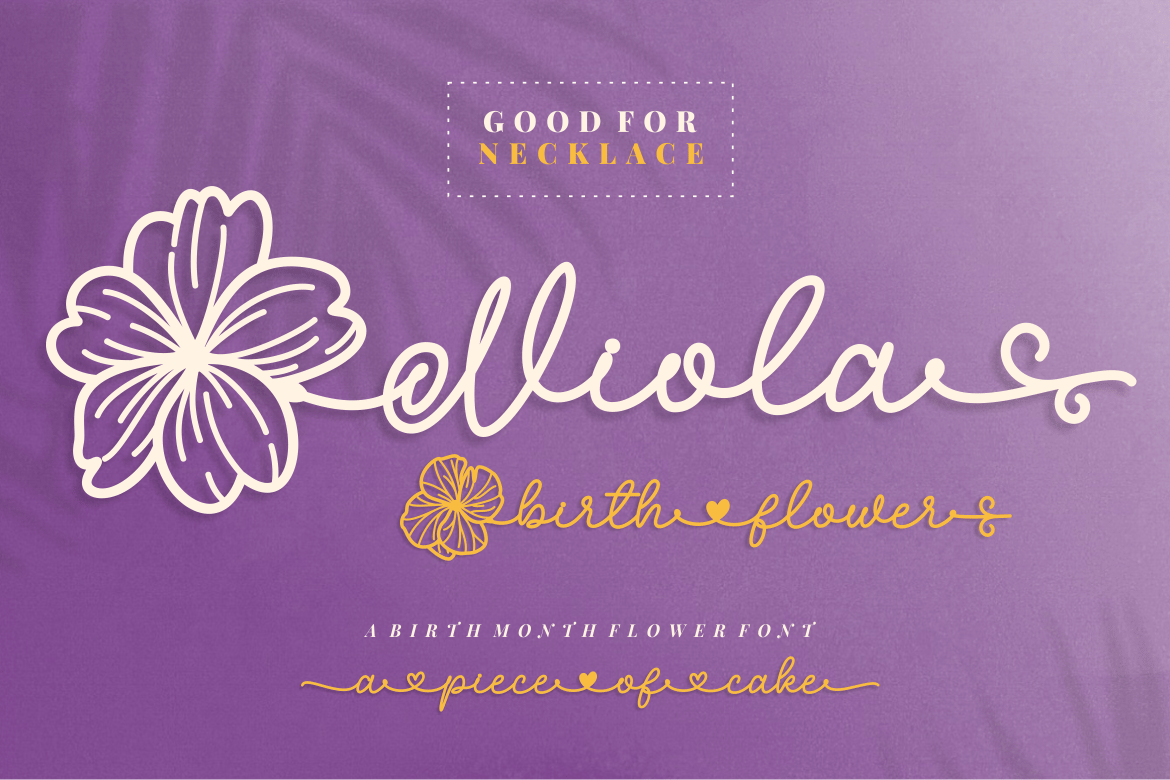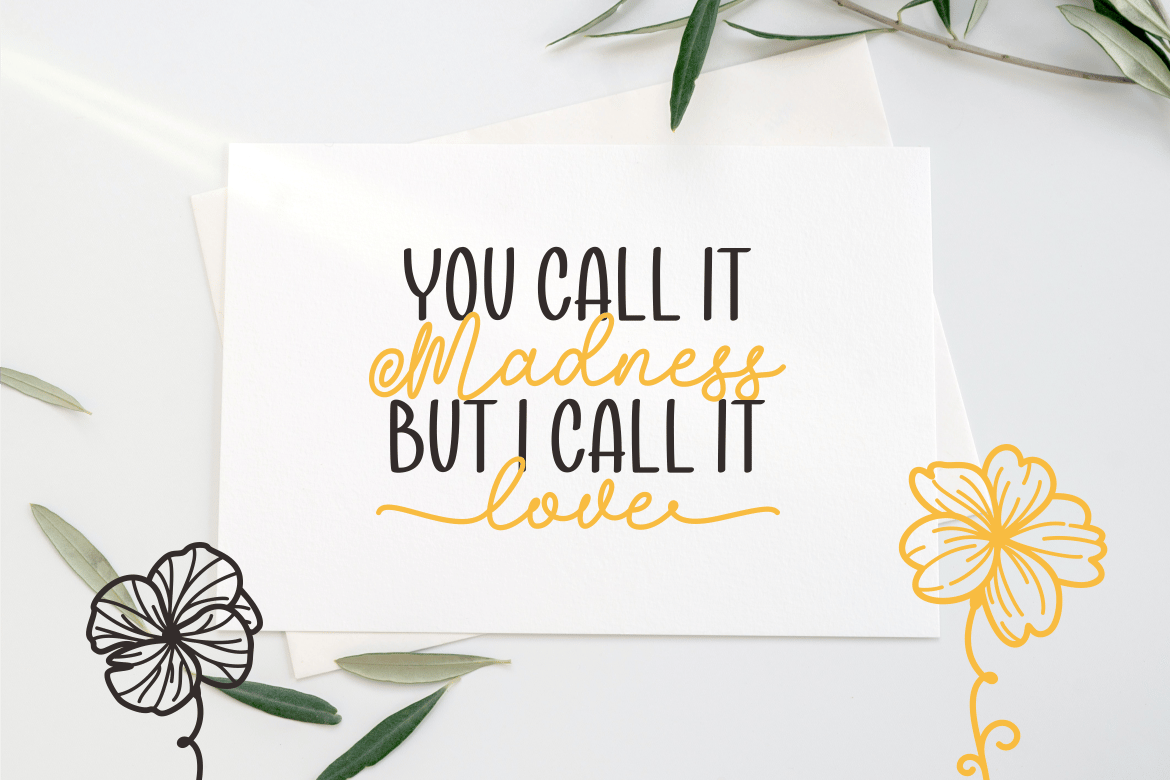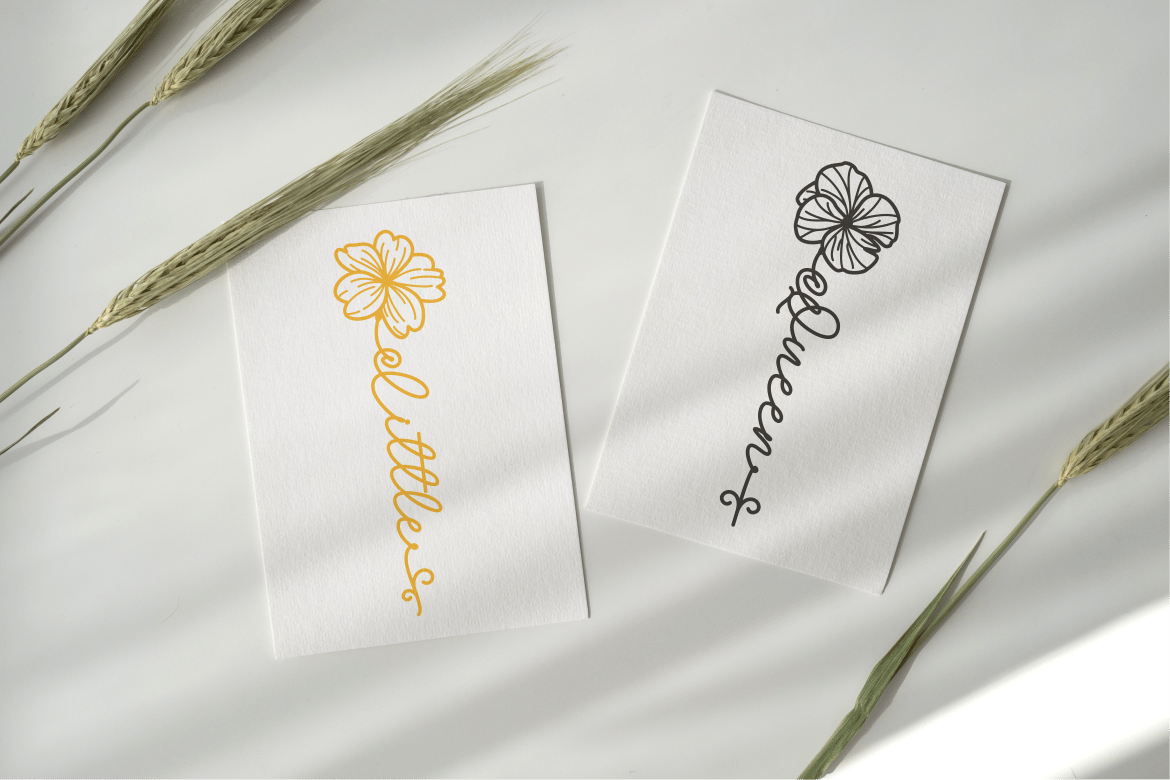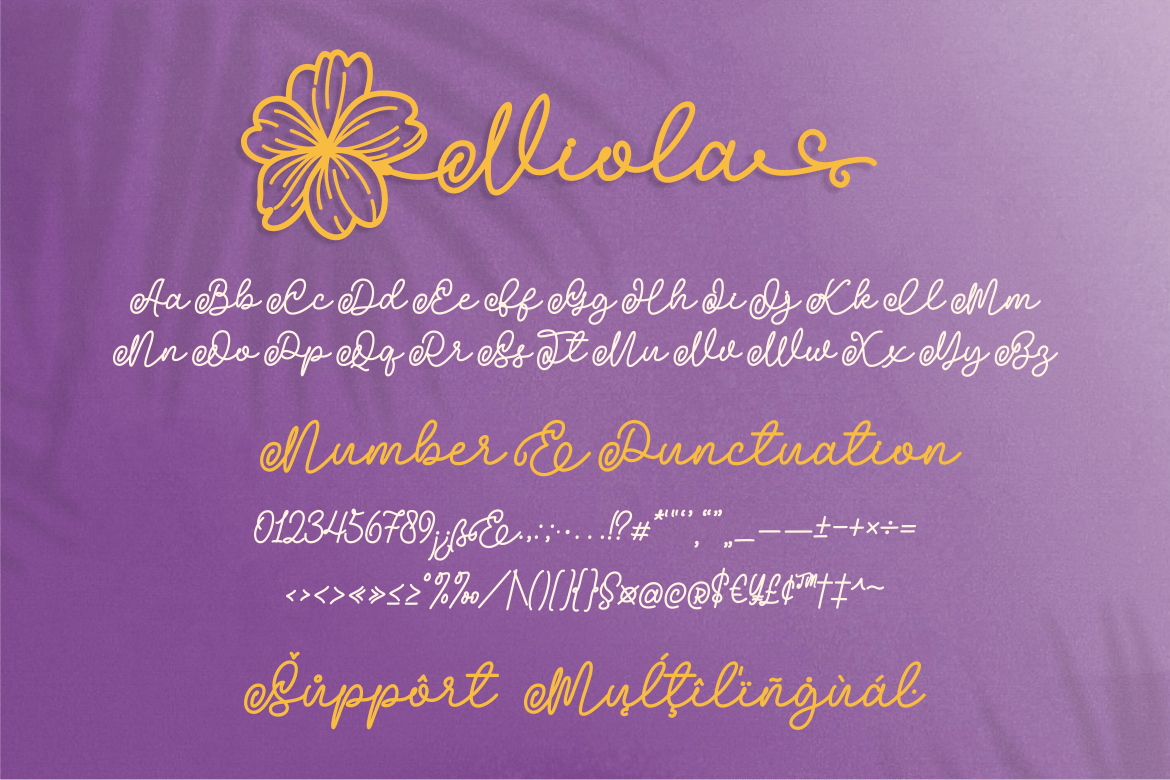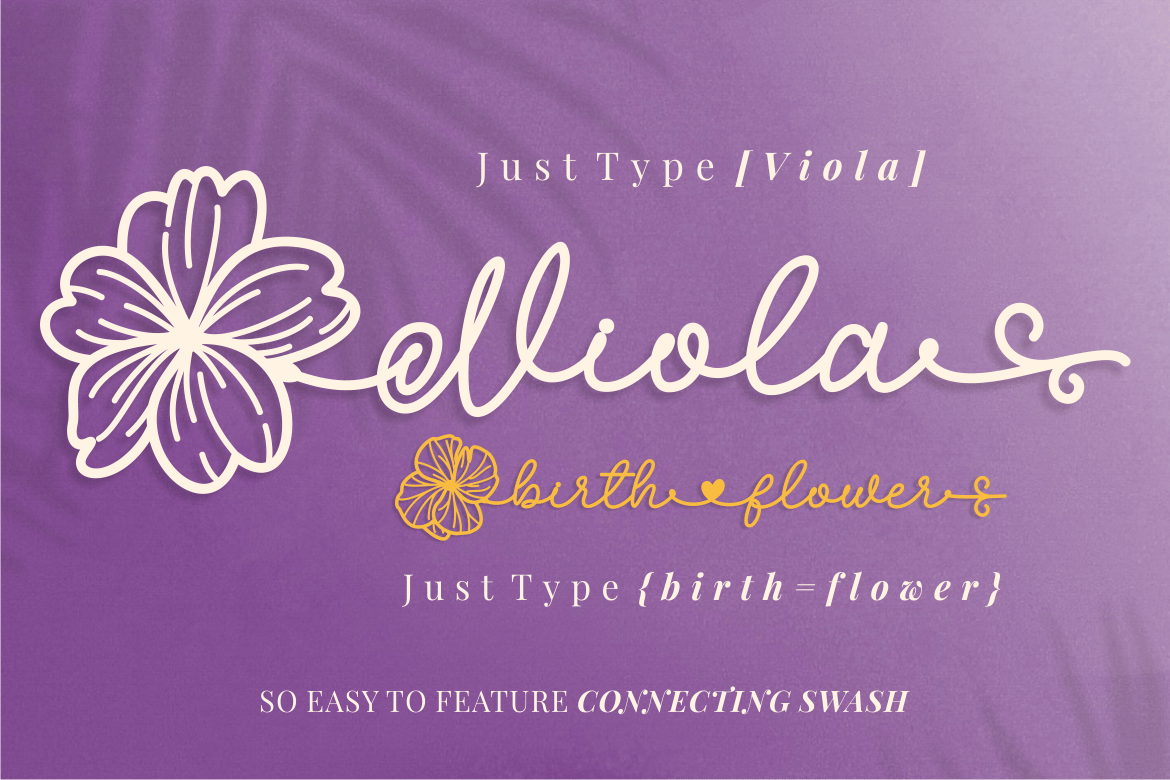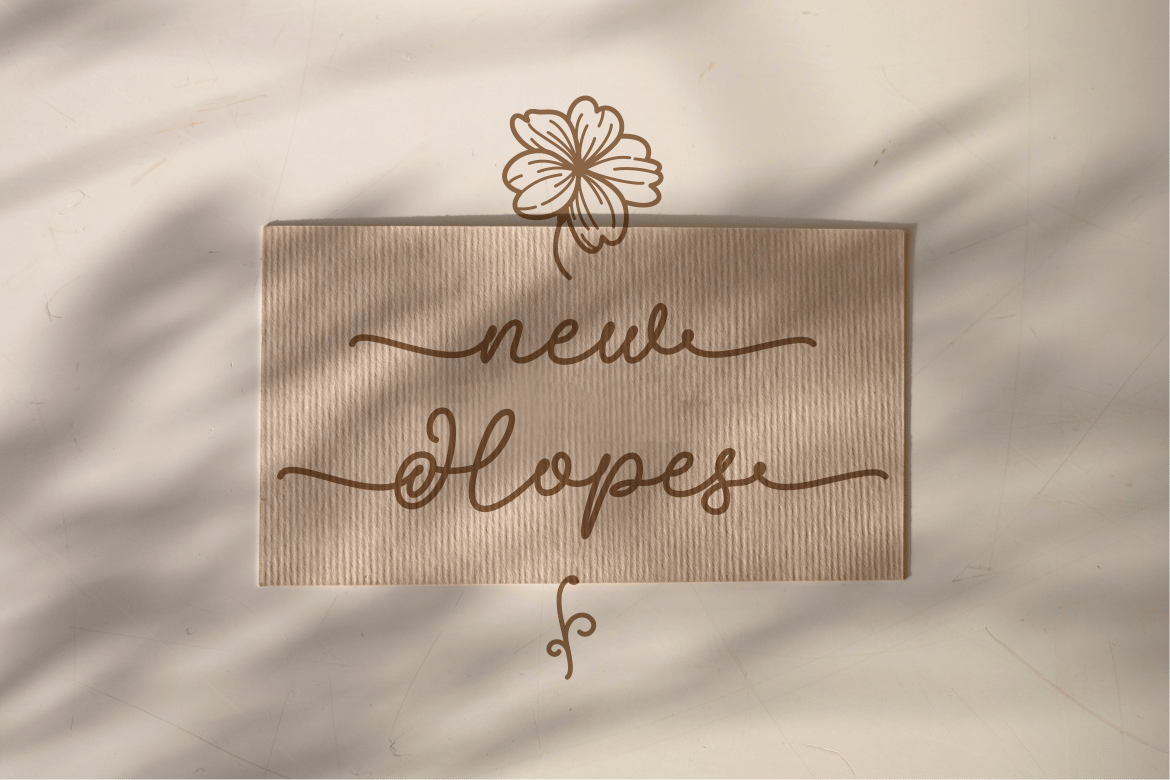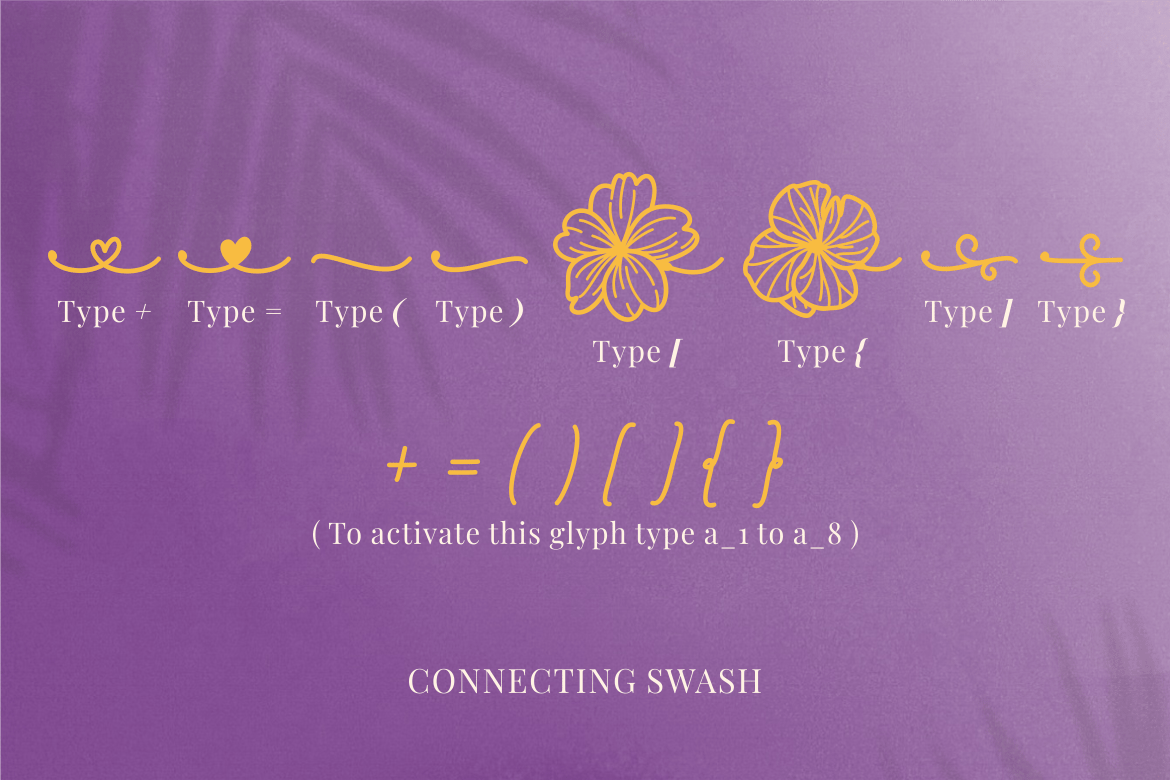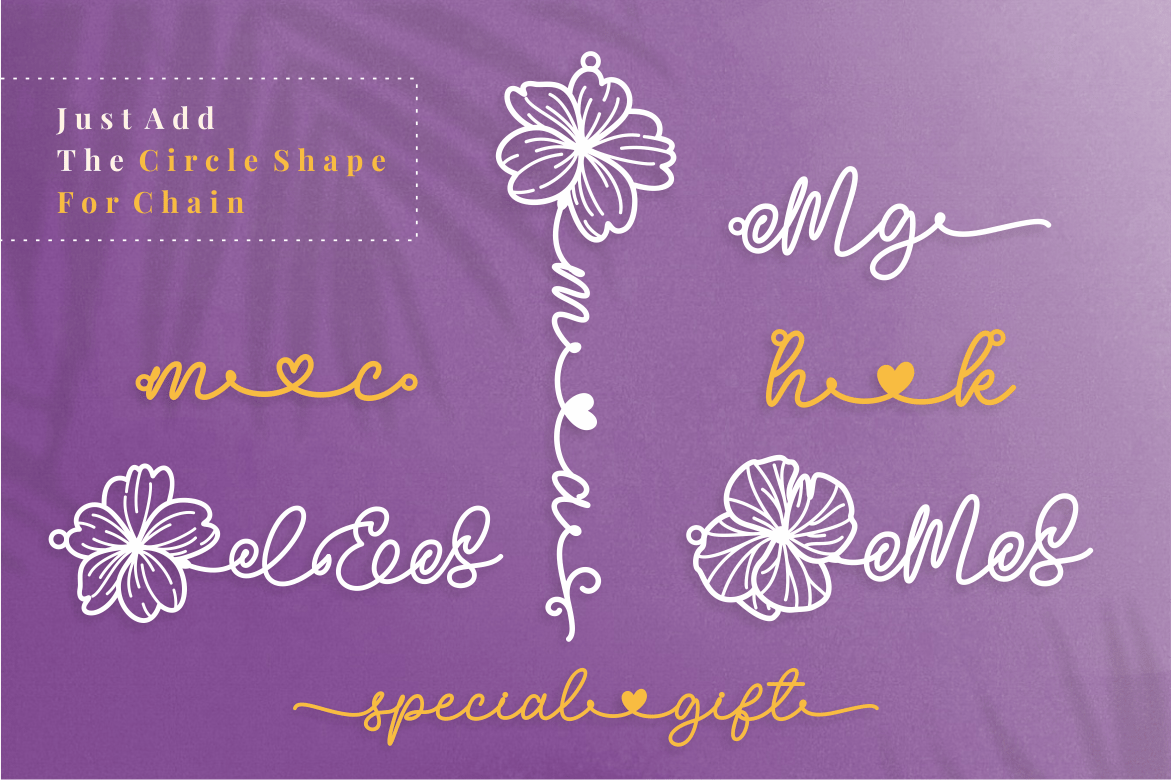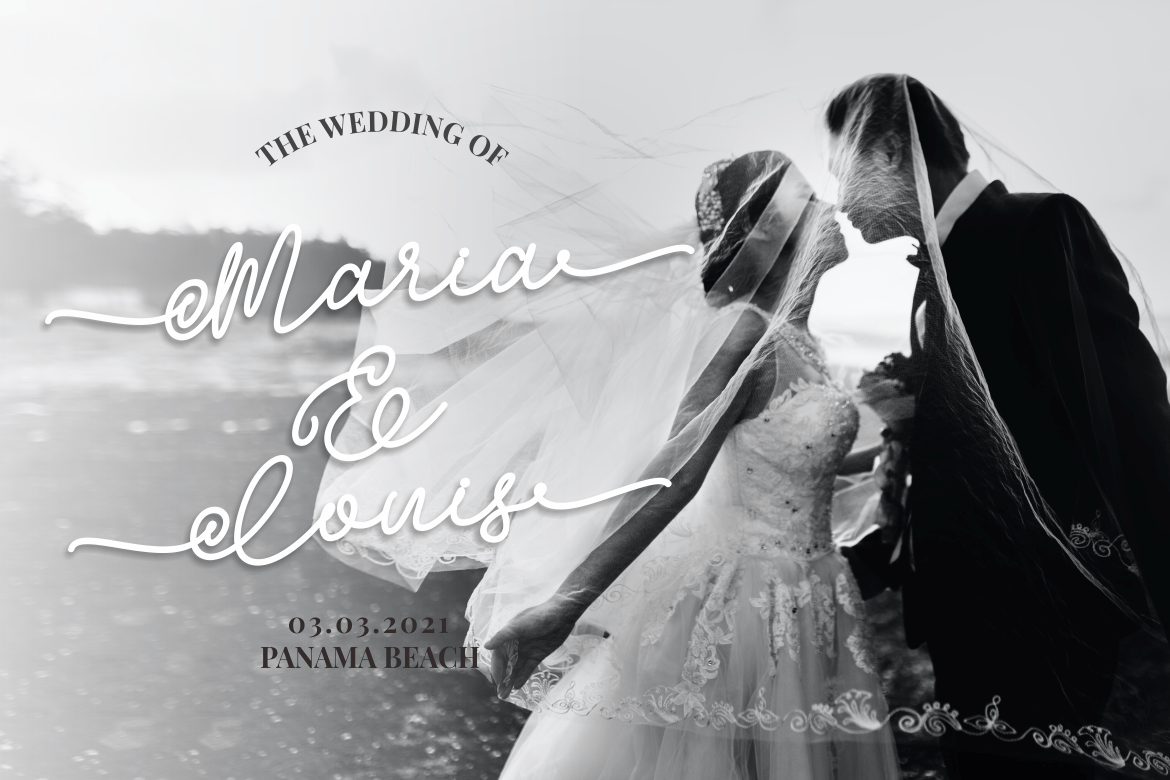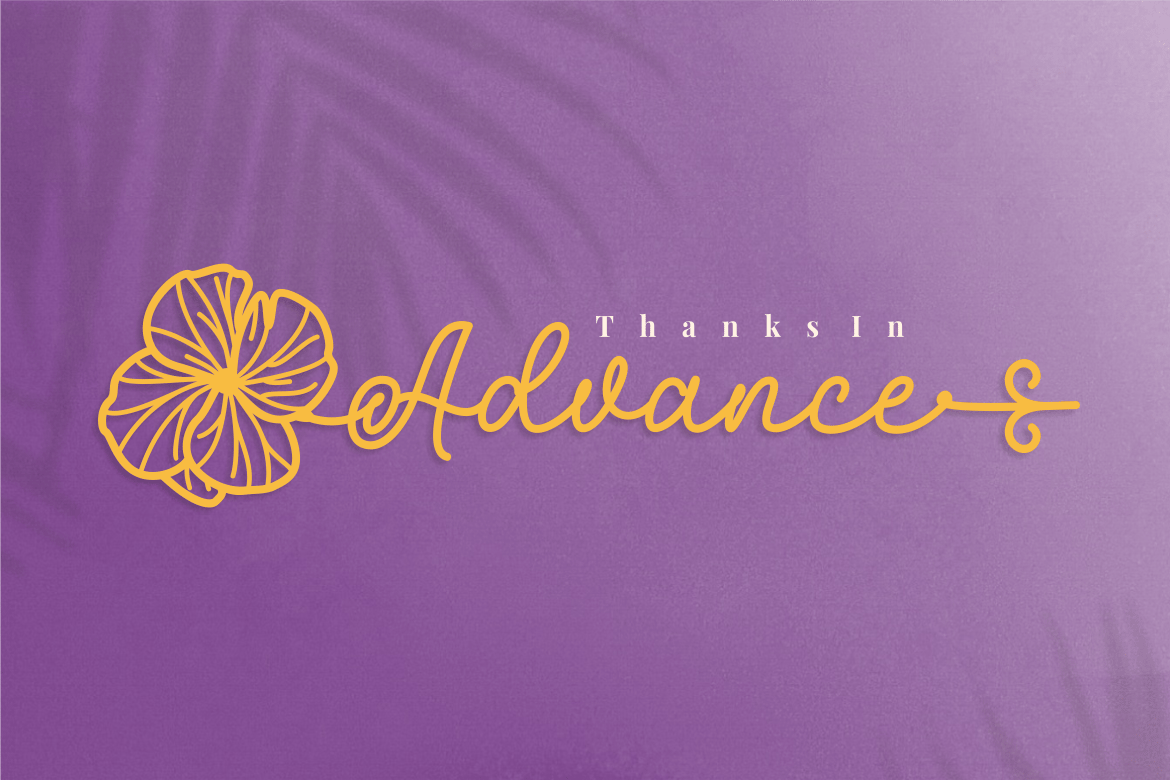
Viola Birth Flower – An Ornament Script Font
Introducing, Viola Birth Flower is a beauty script font suitable for your design project needs, such as; wedding themes, necklaces, social media posts, quotes, overlays on images, tagline logos, posters, print needs, website banners, and more.
- A set of uppercase and lowercase glyphs
- Number, symbol, and punctuation
- Some Swashes
So Easy to Use
Access Swashes by keyboard
- key bracketleft ‘ [ ‘ to feature flower swash 1
- key braceleft ‘ { ‘ to feature flower swash 2
- key parenleft ‘ ( ‘ to feature beginning swash
- key plus ‘ + ‘ to feature middle swash 1
- key equal ‘ = ‘ to feature middle swash 2
- key bracketright ‘ ] ‘ to feature ending swash 1
- key braceright ‘ } ‘ to feature ending swash 2
- key parenright ‘ ) ‘ to feature ending swash 3
For Example: type {birth=flower}